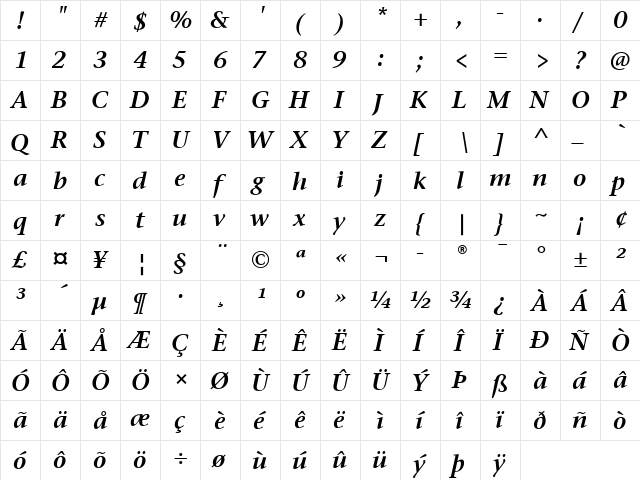
Stone Serif ITC Semi Italic Font Preview
Stone Serif ITC Semi Italic
Design Context for Stone Serif ITC Semi Typeface
Stone Serif ITC Semi brings classic typographic sensibility to the table — its serifs and measured letterforms reflect centuries of print heritage. Its italic angle brings a sense of urgency and motion to the letterforms.
Pro Tip: Set Stone Serif ITC Semi with slightly loose tracking in headlines to let each letterform's detail read clearly at display sizes.